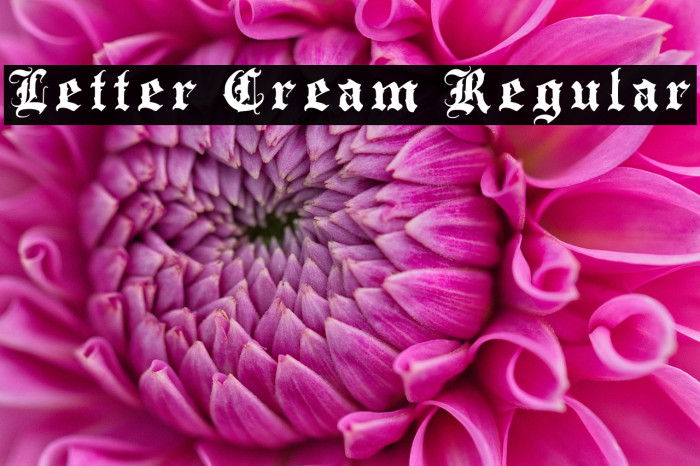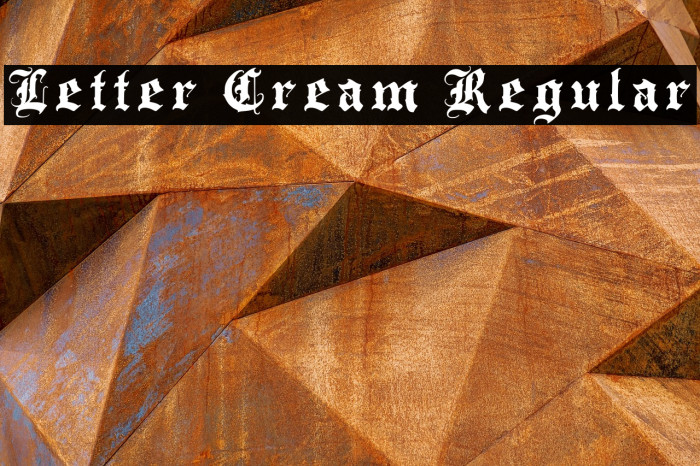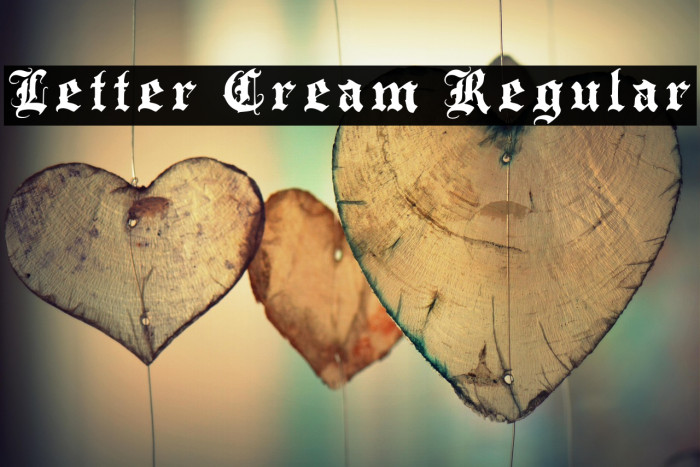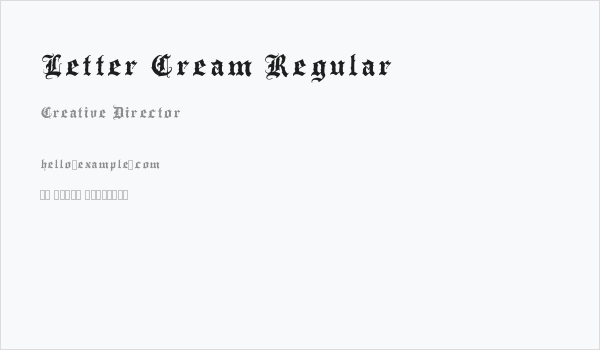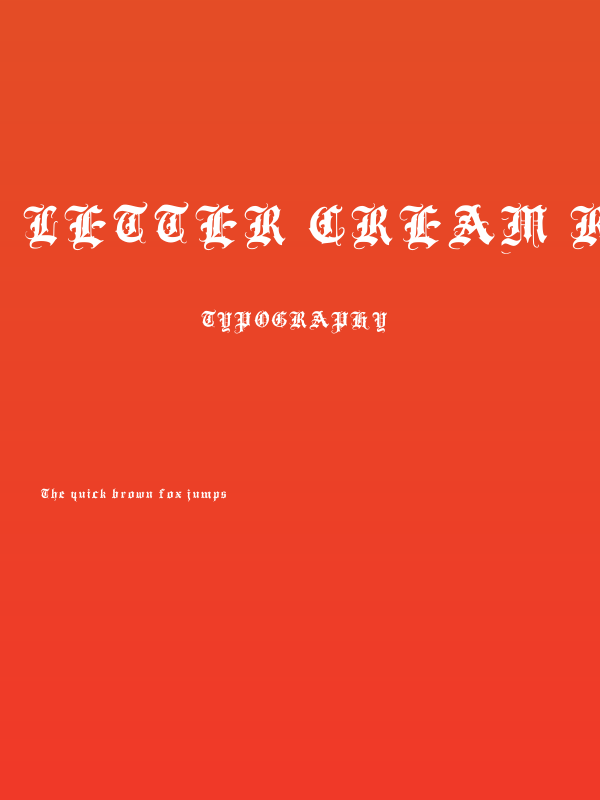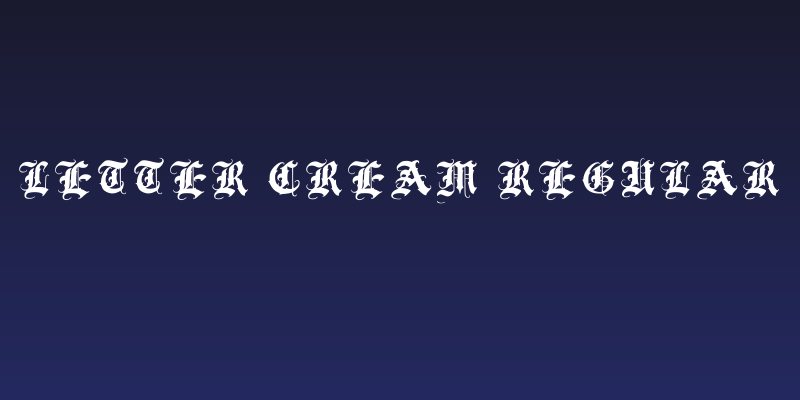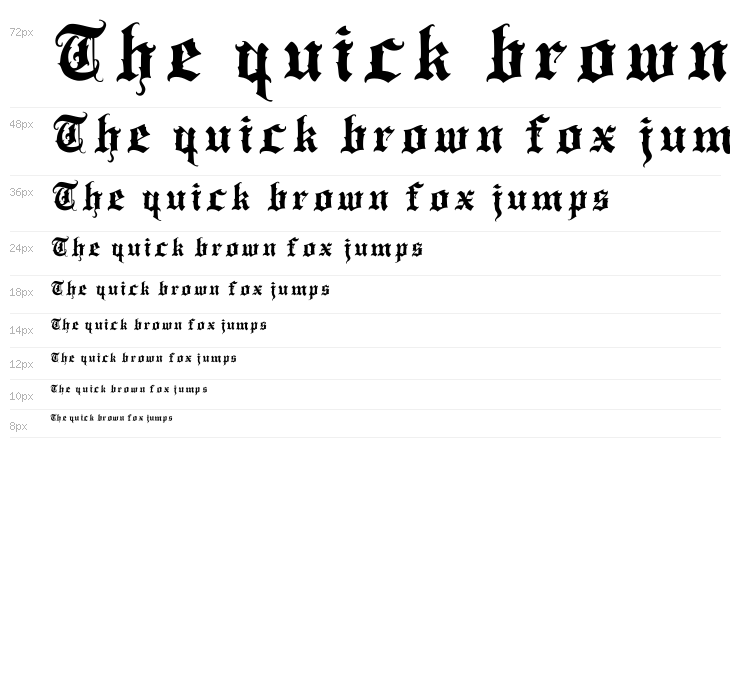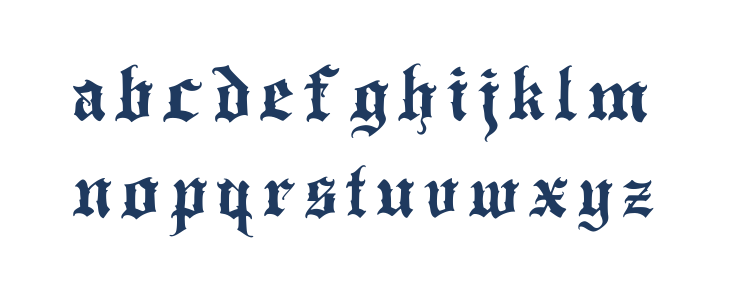
Letter Cream Regular Font
Letter Cream Regular Description
This font exhibits a classic blackletter style, characterized by its ornate and intricate design. The letters are bold and feature sharp, angular strokes with elaborate flourishes, giving it a distinctly medieval appearance. The uppercase letters are particularly decorative, with additional embellishments that enhance their gothic aesthetic. The lowercase letters maintain the same level of detail, ensuring consistency across the typeface. The numerals and special characters are designed to match the overall theme, making this font suitable for projects that require a historical or traditional touch.
| Proposed Projects | Ideal for historical documents, wedding invitations, certificates, and branding that requires a traditional or gothic touch. |